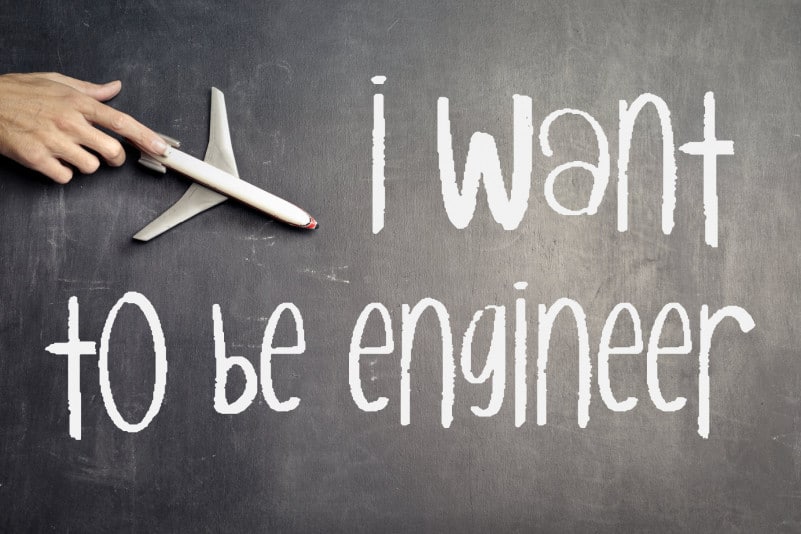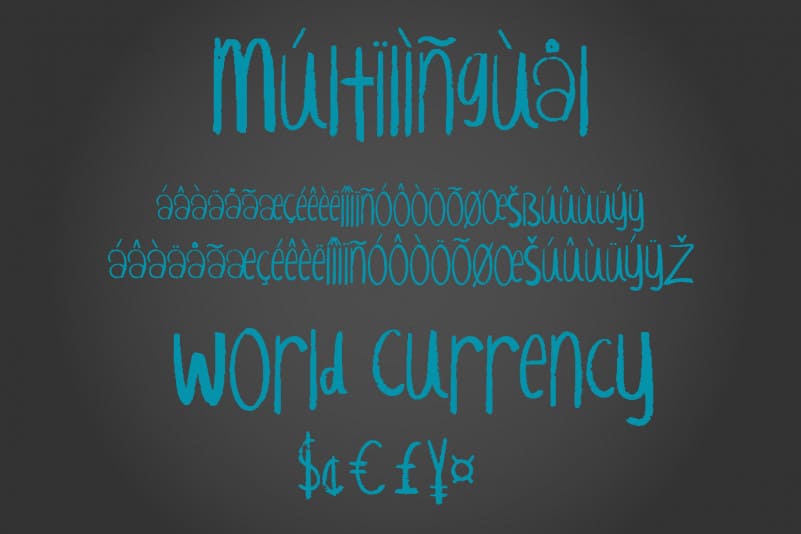
Chalky View Display Font is a unique display font that heavily inspired by the writing of chalk on a blackboard. With natural touch of a chalk and rough handwriting style, this font will add originality to your design project.